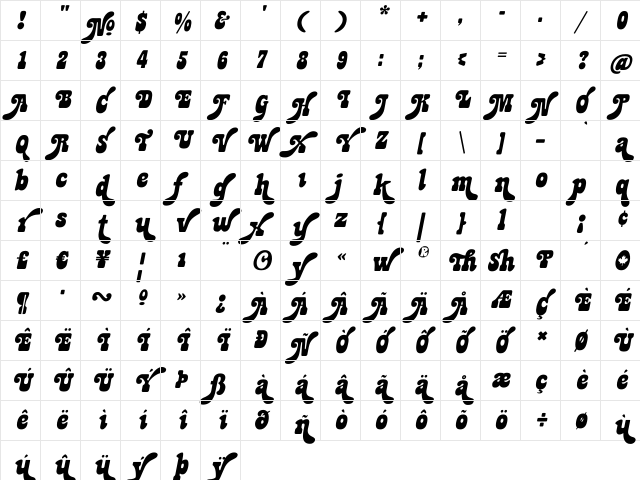
Jackpot Sweep Italic
Foundry: Canada Type
Design Context for Jackpot Sweep
Jackpot Sweep is a composed and adaptable typeface that performs quietly and consistently across a wide range of design contexts. The slanted form adds forward momentum and visual energy.
Pro Tip: Use Jackpot Sweep for emphasis, pull quotes, and subheadings where its slanted energy can add rhythm to the layout.